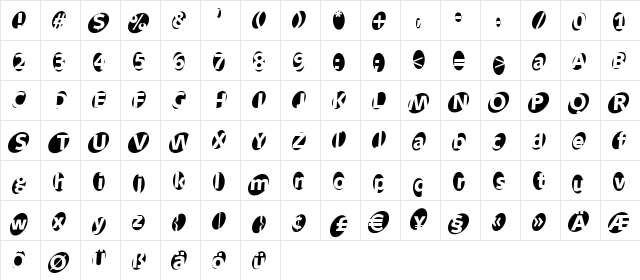
Aida Regular Free Font
Aida Regular
Design Context for Aida
Aida is a composed and adaptable typeface that performs quietly and consistently across a wide range of design contexts.